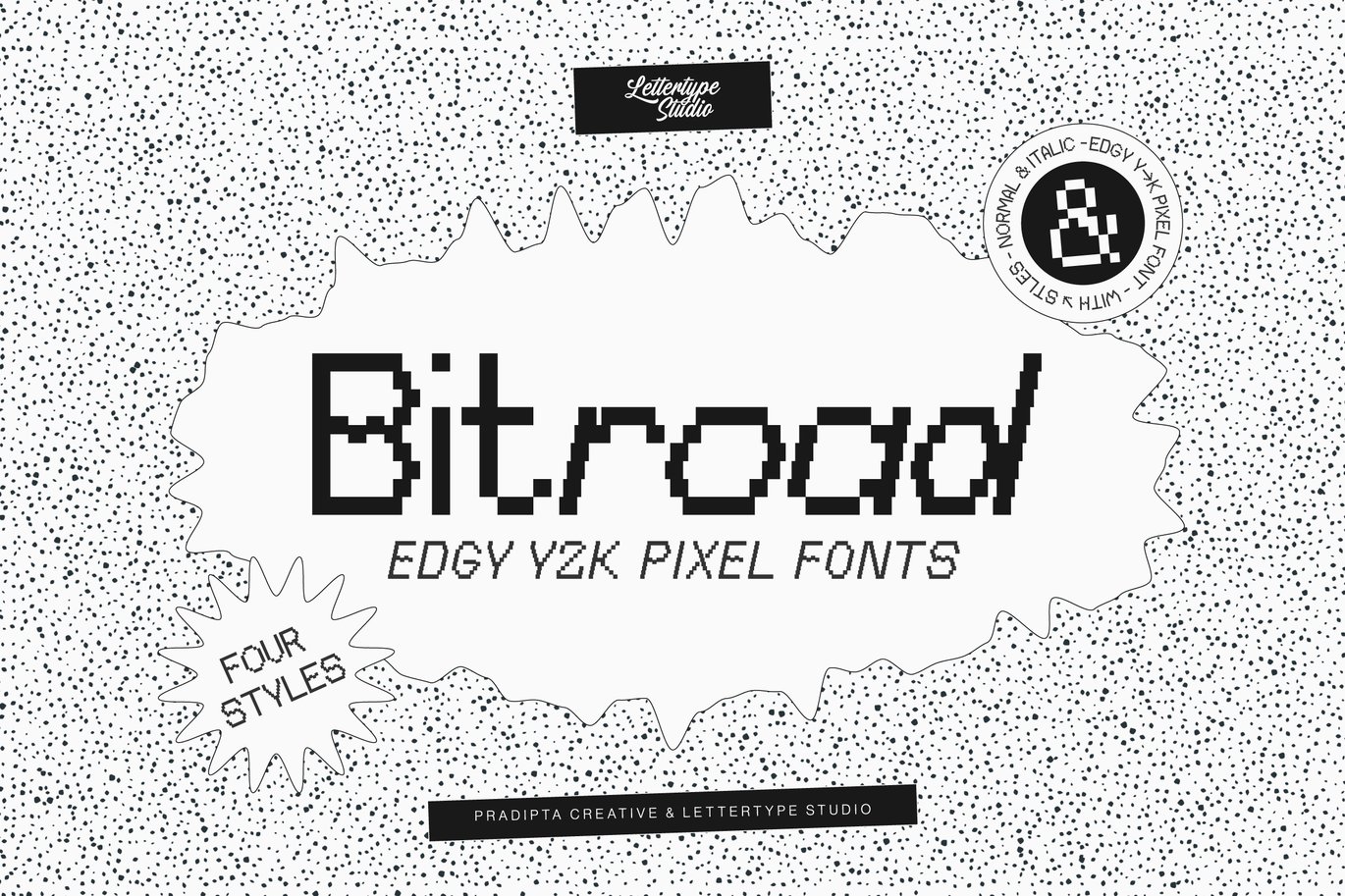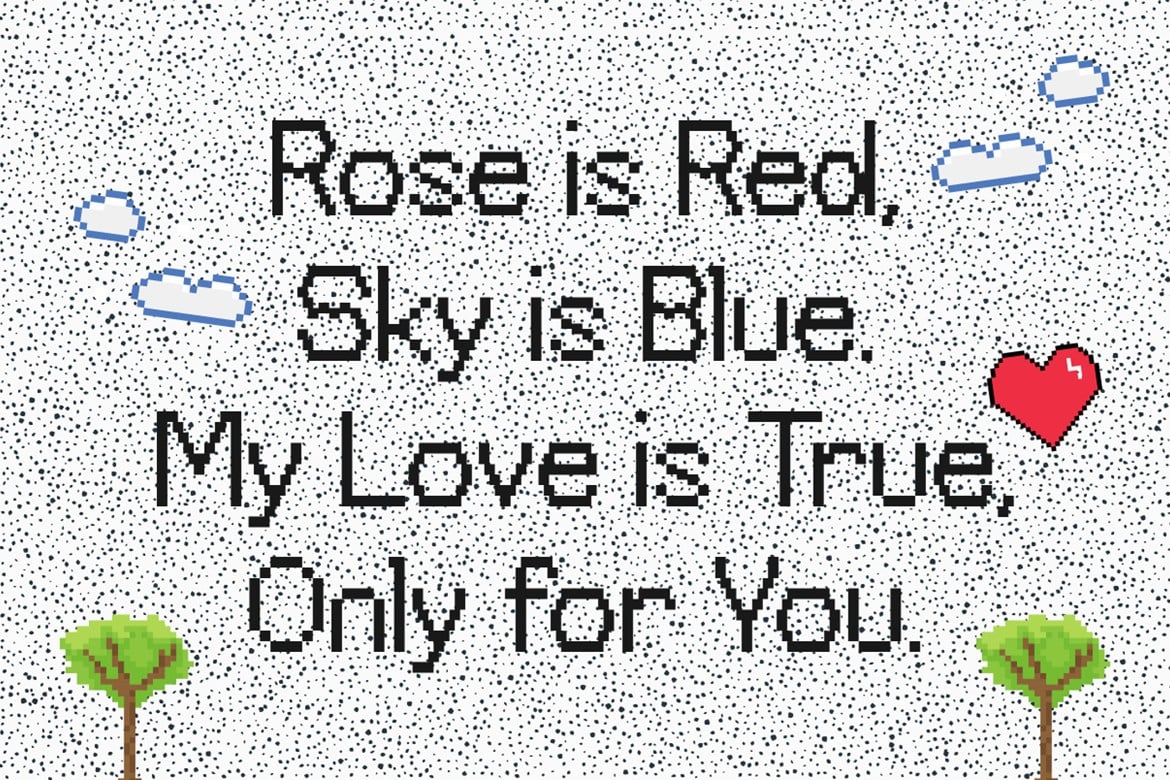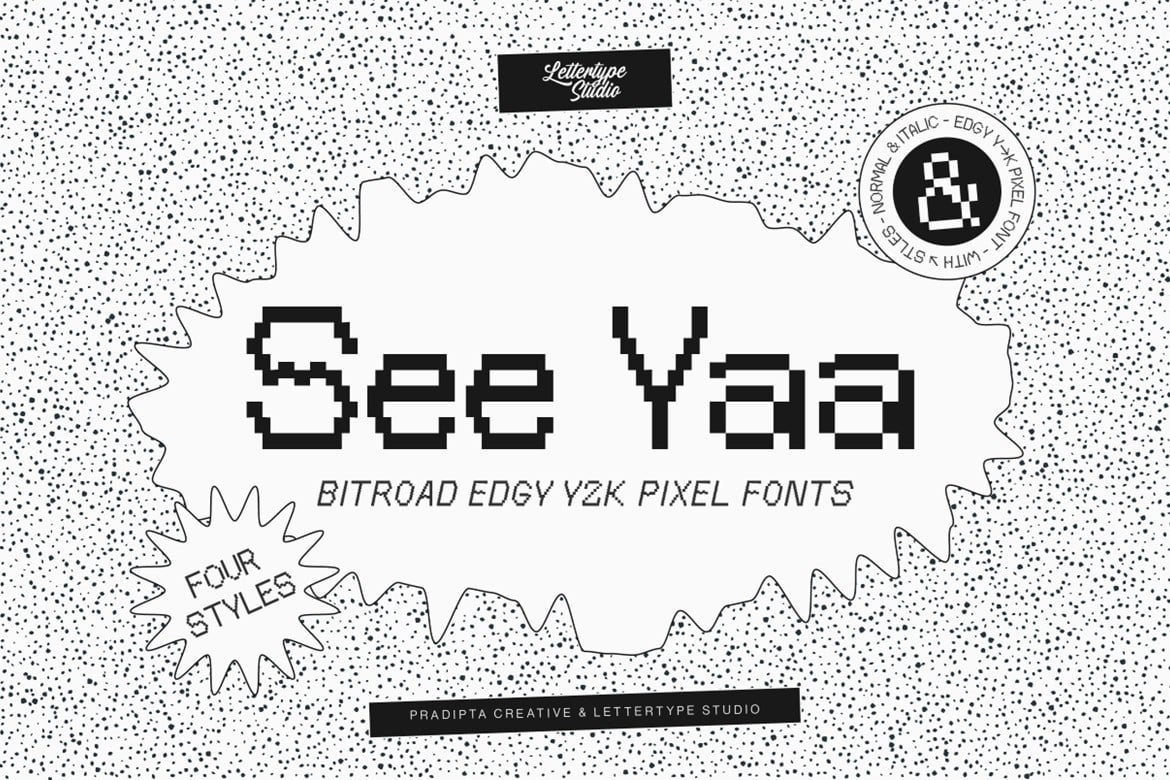
Bitroad Edgy Y2K Pixel Font
Bitroad Edgy Y2K Pixel Font is a versatile typeface ideal for various projects, including logos, branding, posters, blog headers, advertisements. The free version includes a full set of uppercase and lowercase letters, available in OTF format.